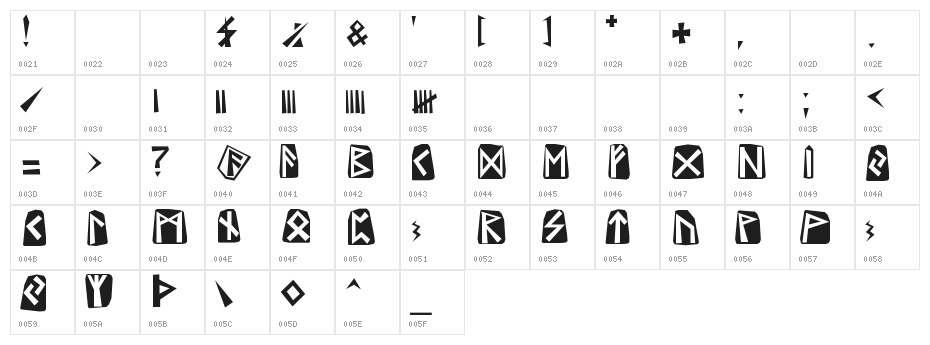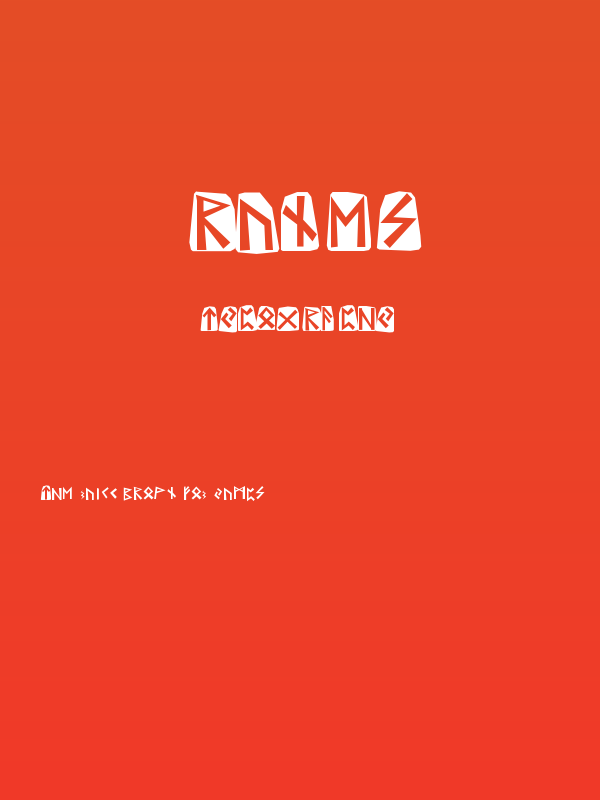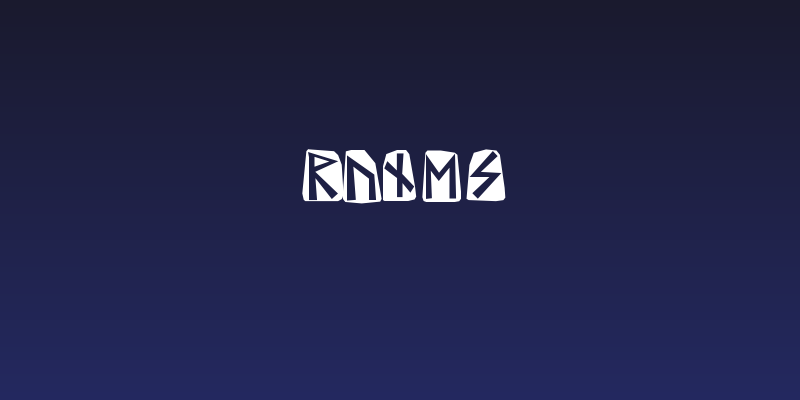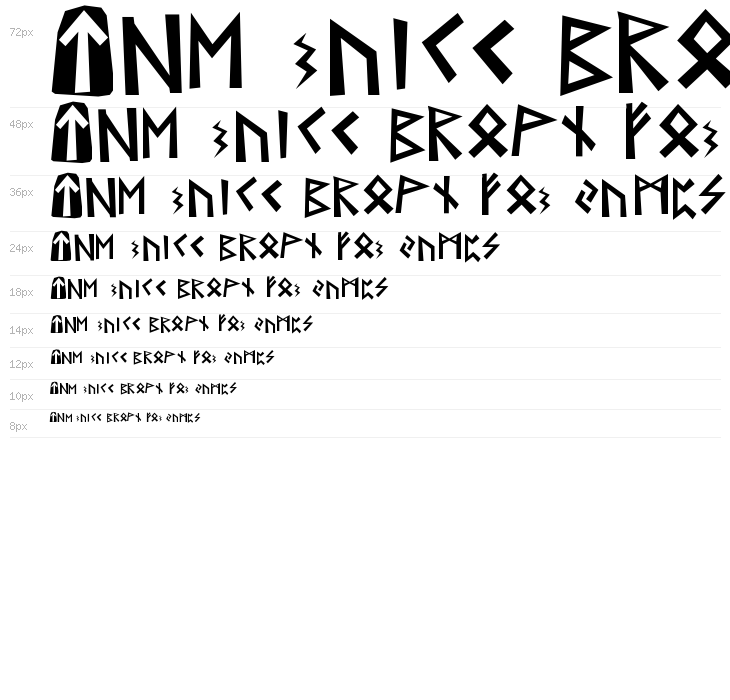
Runes Font
Runes Description
This font is inspired by ancient runic alphabets, featuring angular and geometric shapes that evoke a sense of mystery and antiquity. Each character is crafted with sharp edges and bold lines, creating a striking visual impact. The uppercase letters are enclosed in block-like forms, while the lowercase letters maintain a similar angular style without the enclosing shapes. Numbers and special characters follow the same design principles, ensuring consistency throughout the character set. The font's unique style makes it ideal for projects that require a historical or mystical aesthetic.
| Overall Style | Vintage |
| Use Case | Logos, Headlines, Posters |
| Proposed Projects | Ideal for fantasy book covers, historical documentaries, themed event posters, or video game titles. |